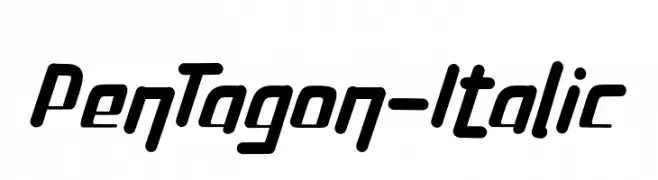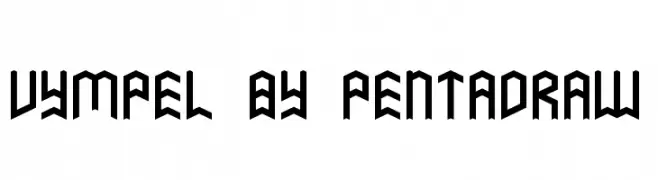
A bold, dynamic script font with a strong, energetic presence.
A sophisticated cursive font with elegant, flowing lines.
A bold, geometric font with sharp angles and a futuristic style.
A bold, modern italic font with dynamic and energetic strokes.
A bold, distressed font with a grunge aesthetic and textured appearance.
A decorative, dice-inspired font with numbers and dots inside pentagonal shapes.